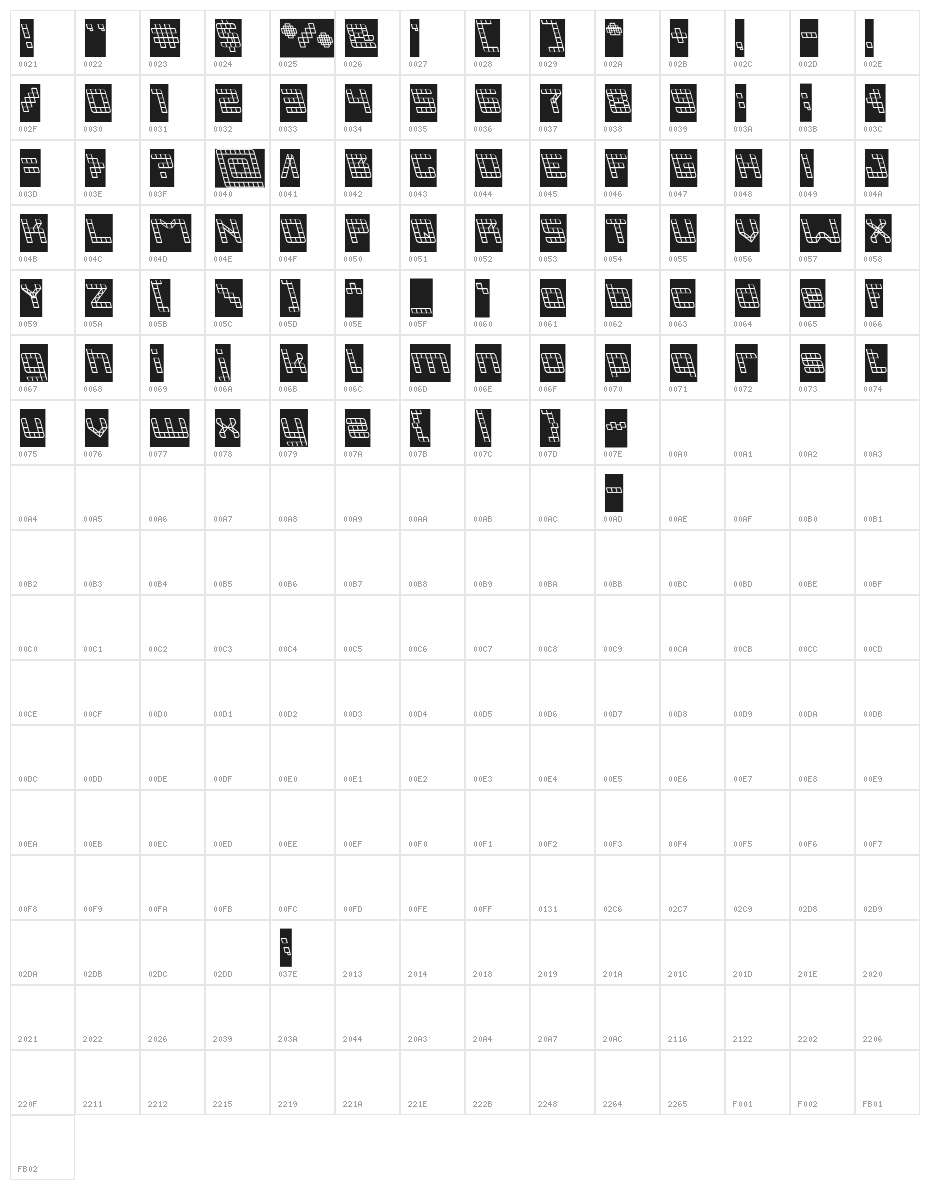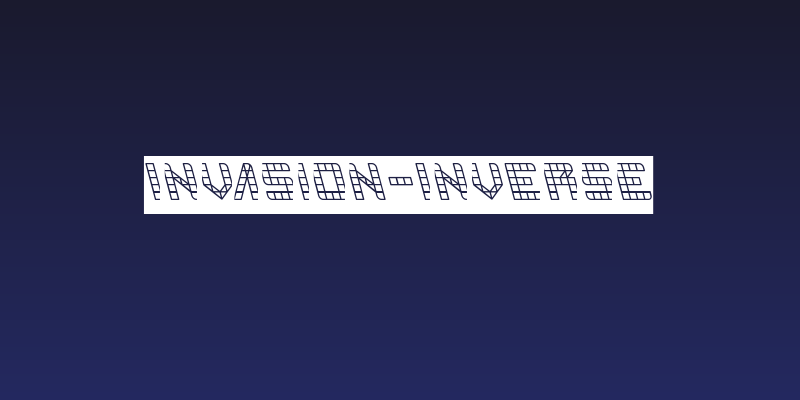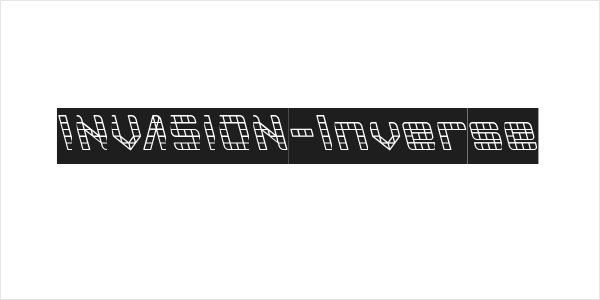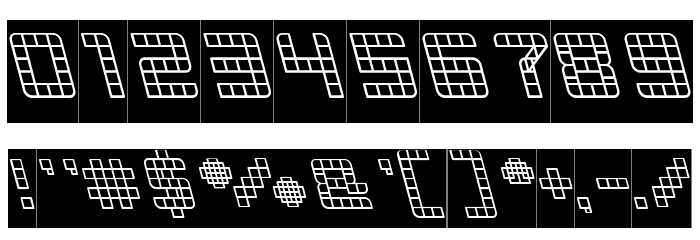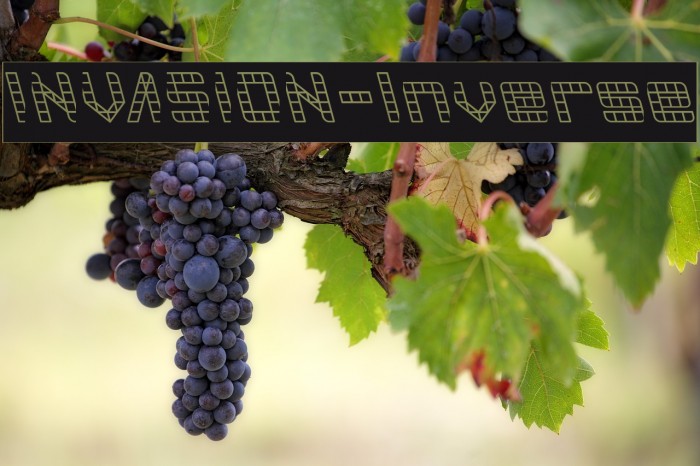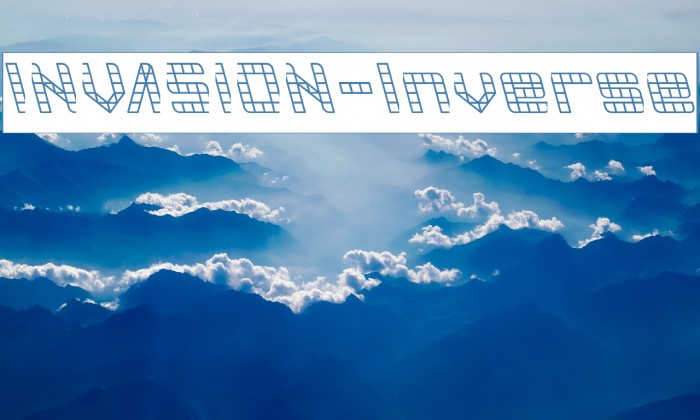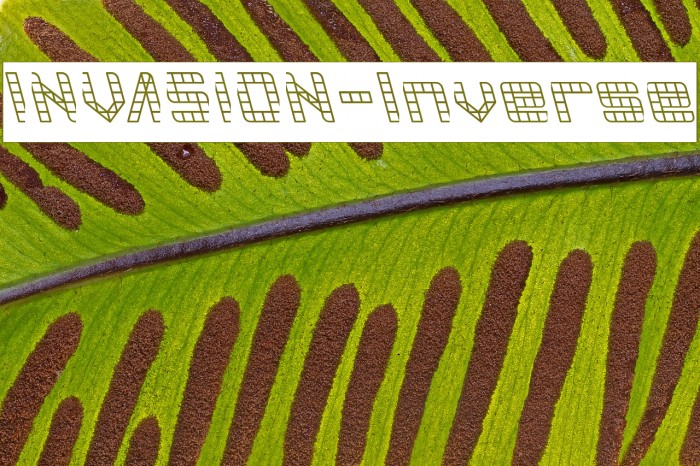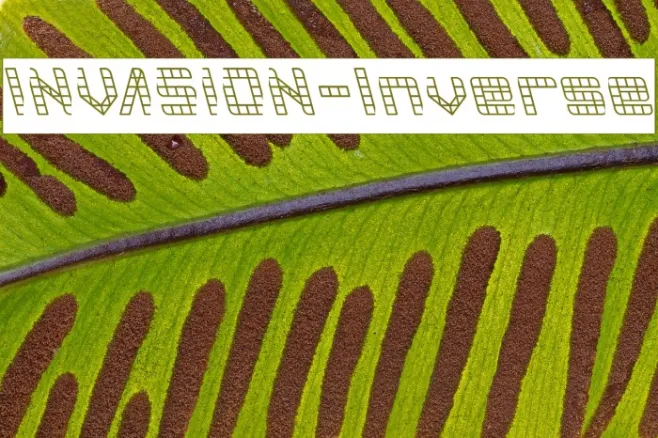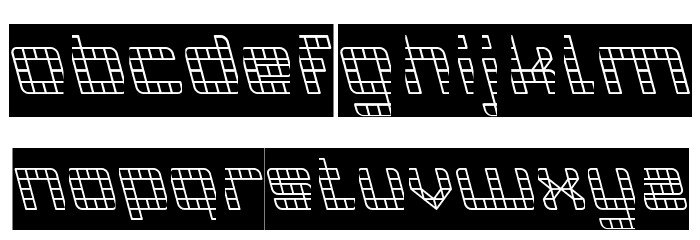
INVASION-Inverse Font
INVASION-Inverse Description
This font features a unique, grid-like pattern that gives each character a futuristic and digital appearance. The letters are constructed with a series of intersecting lines, creating a mesh effect that is both eye-catching and modern. The uppercase and lowercase letters maintain this consistent style, making it suitable for projects that require a cohesive and innovative look. The numbers and special characters follow the same design principles, ensuring uniformity across all text elements. This font is ideal for creative projects that aim to convey a sense of technology and forward-thinking design.
| Proposed Projects | Ideal for tech-themed posters, digital art, video game graphics, and modern branding. |